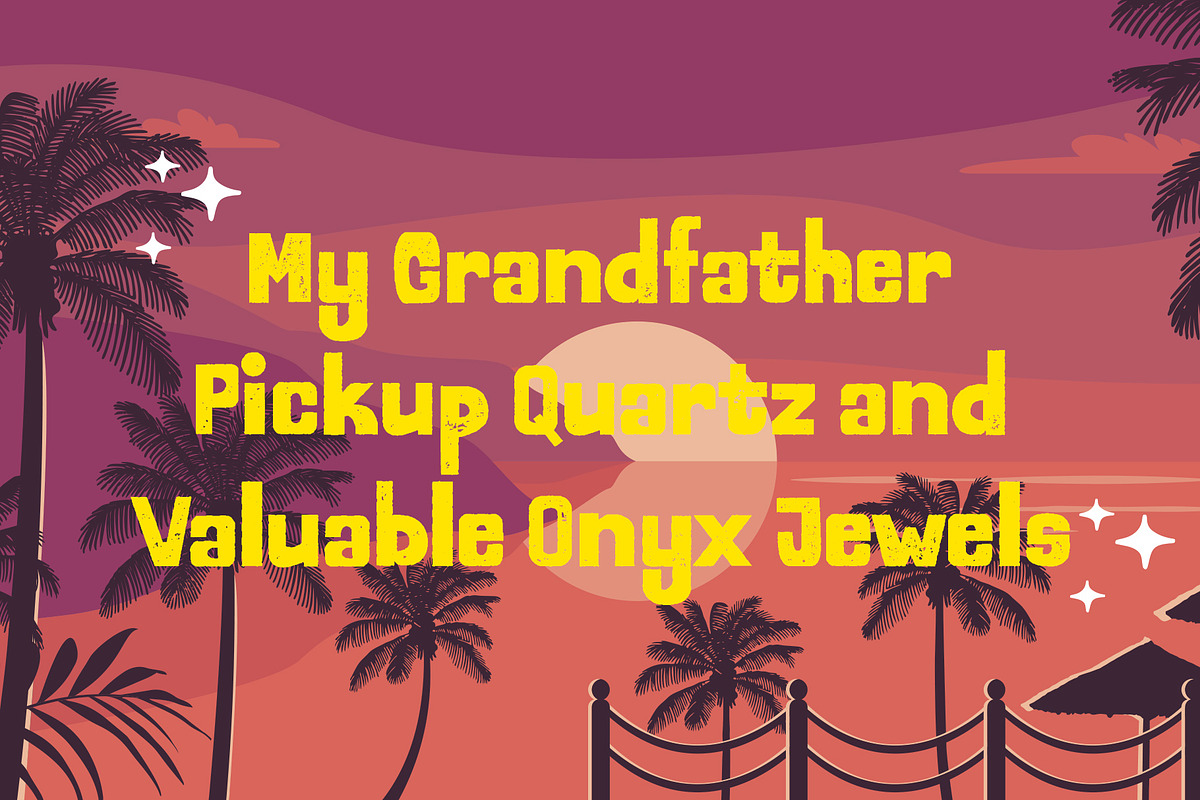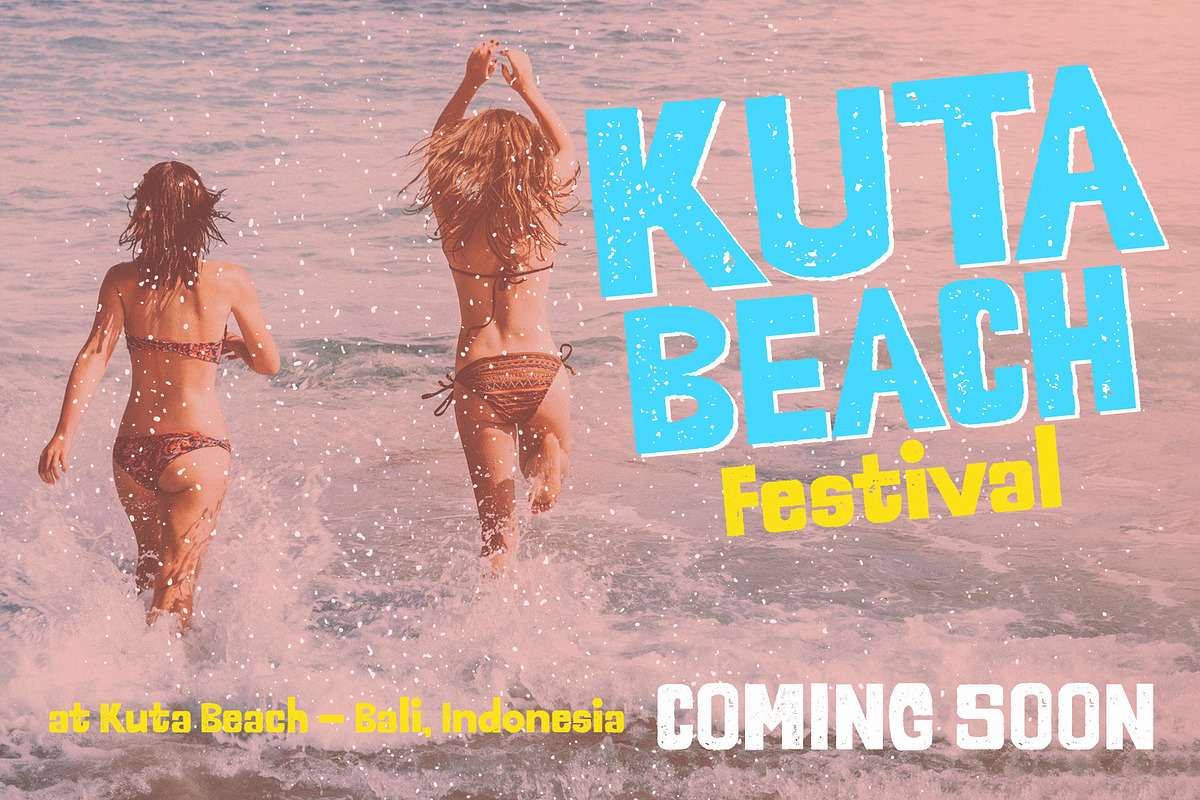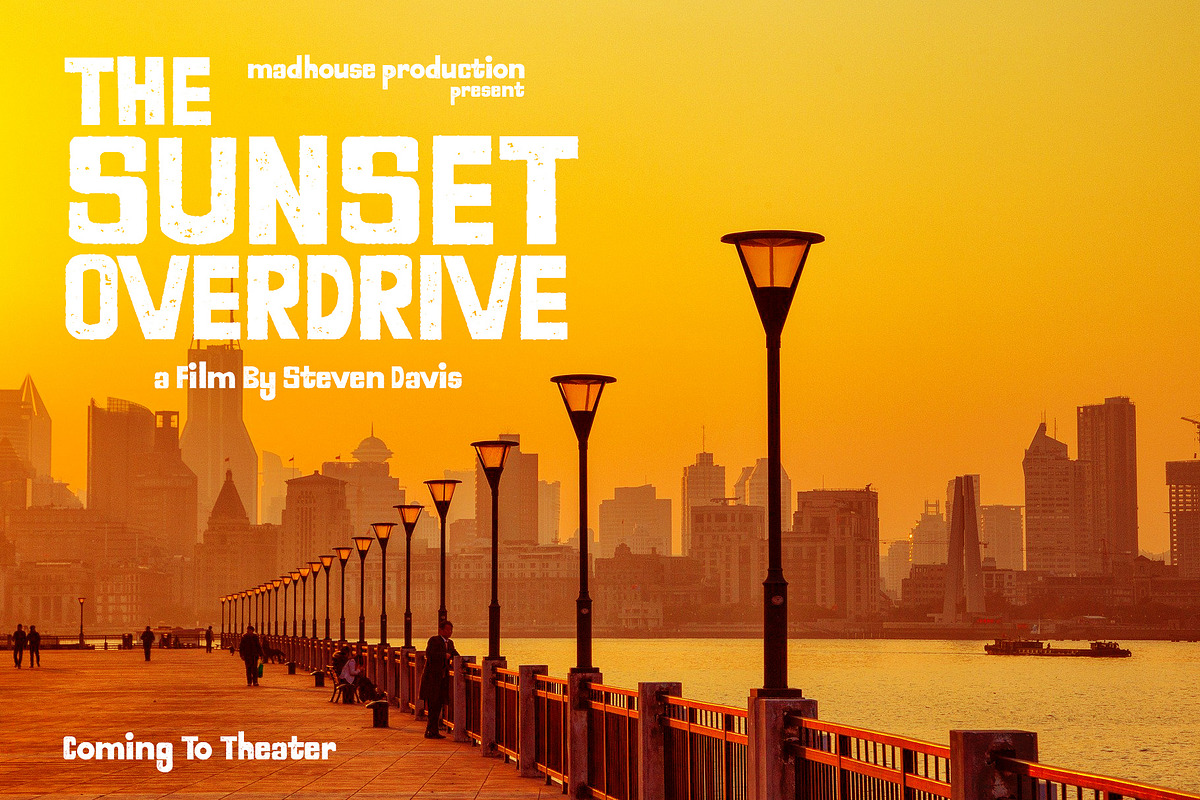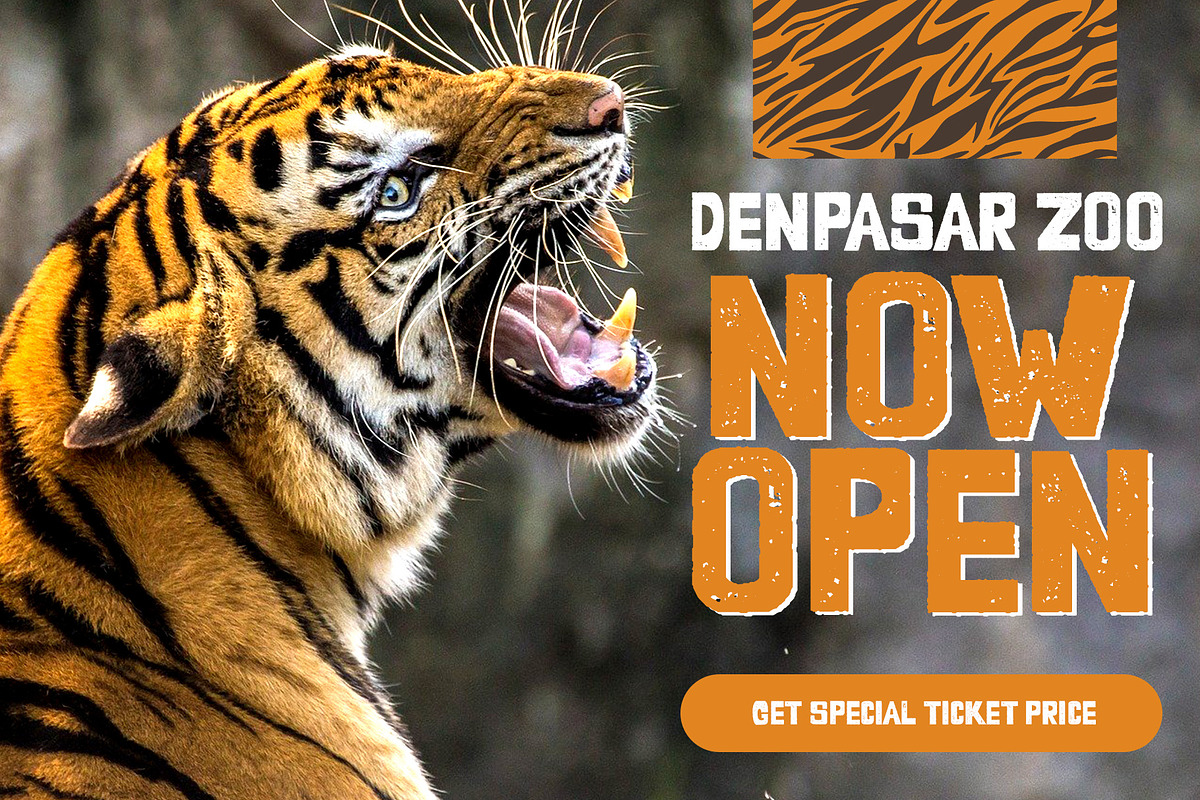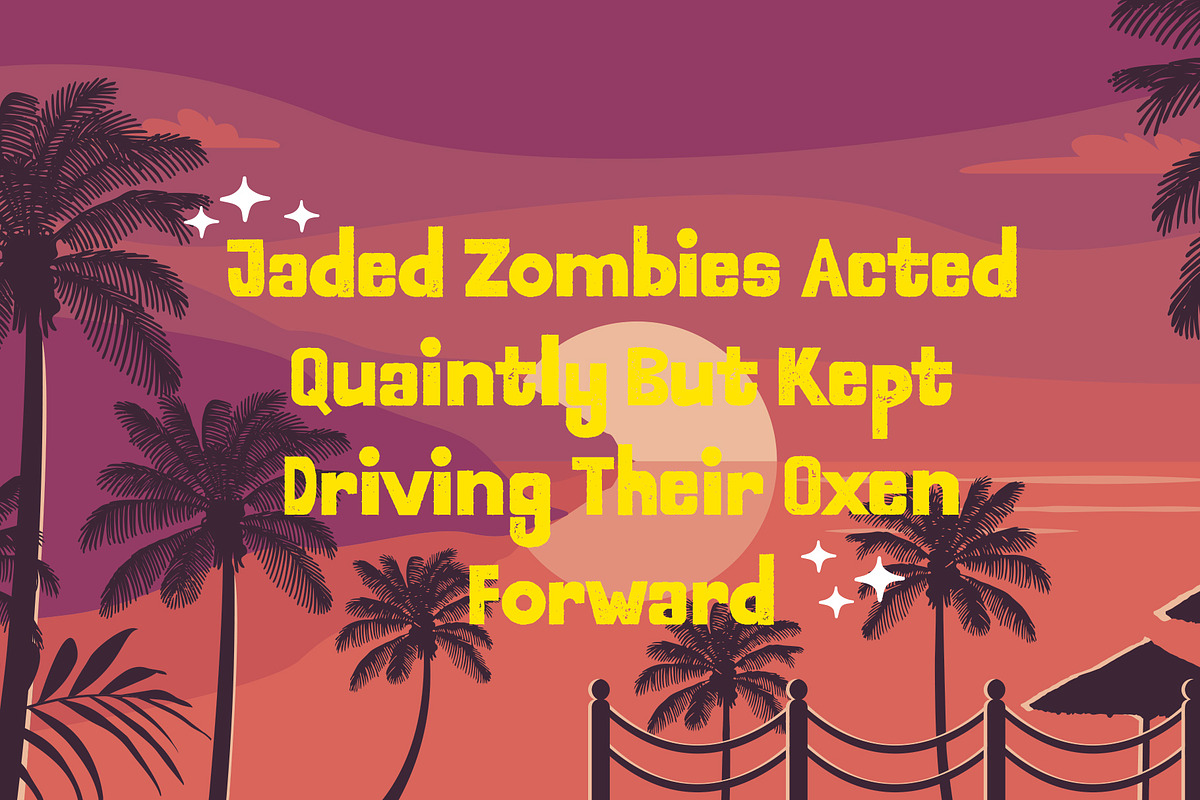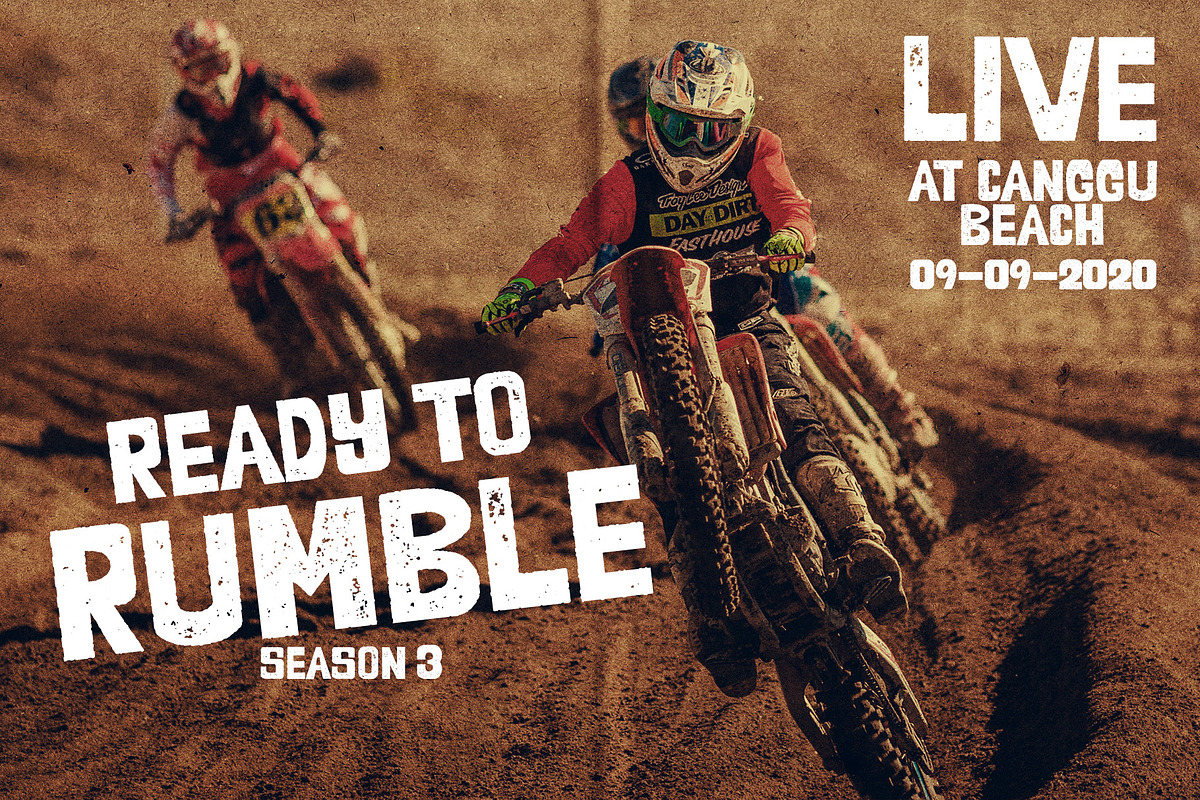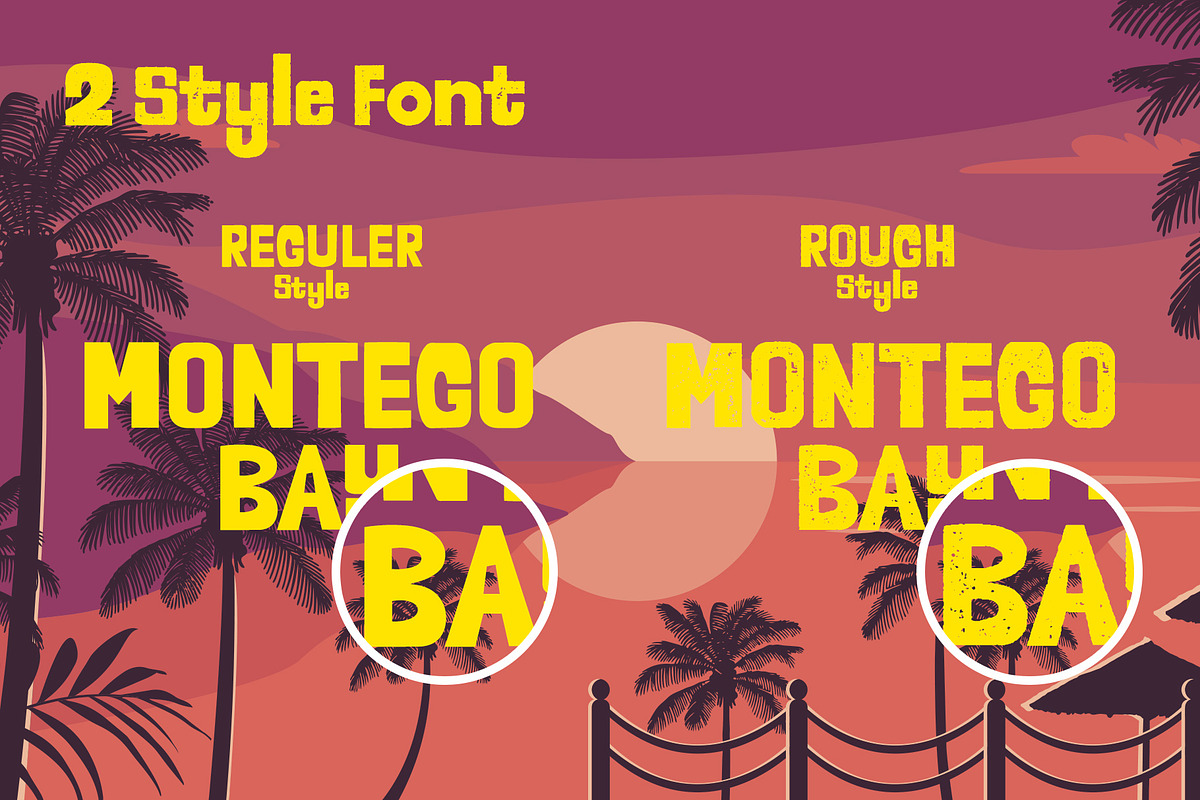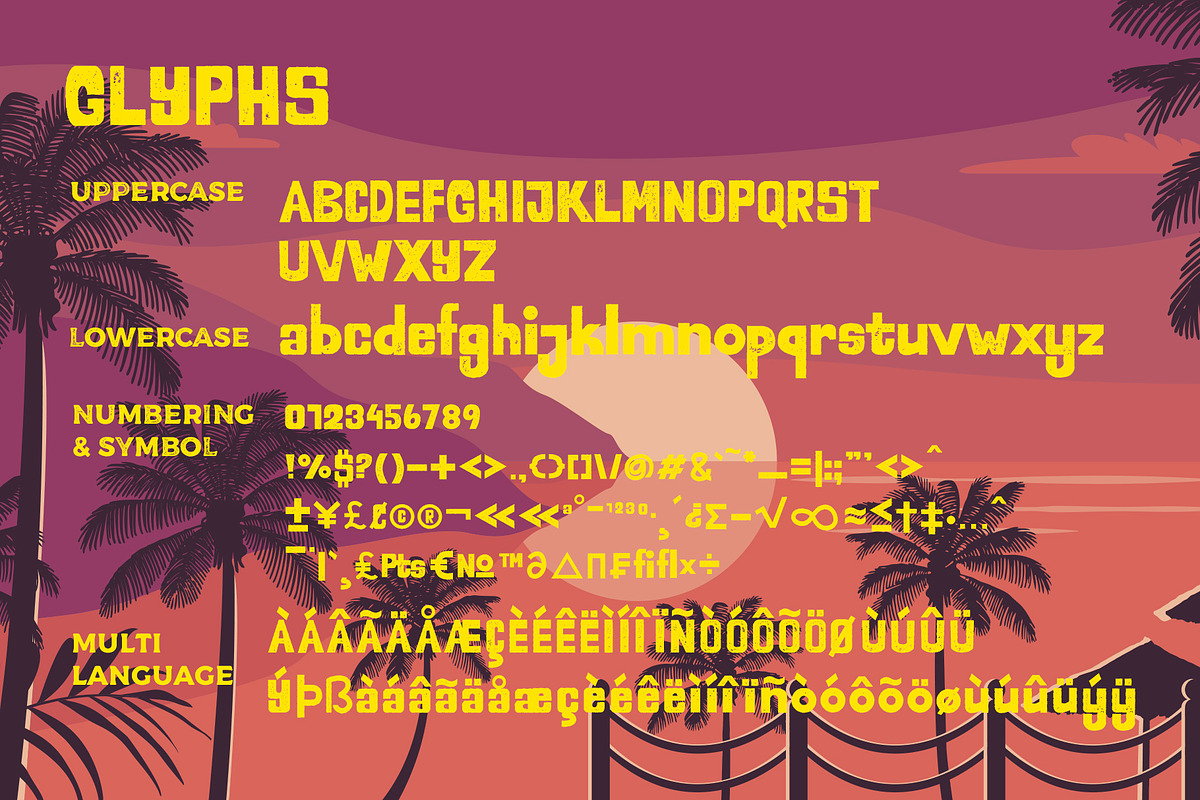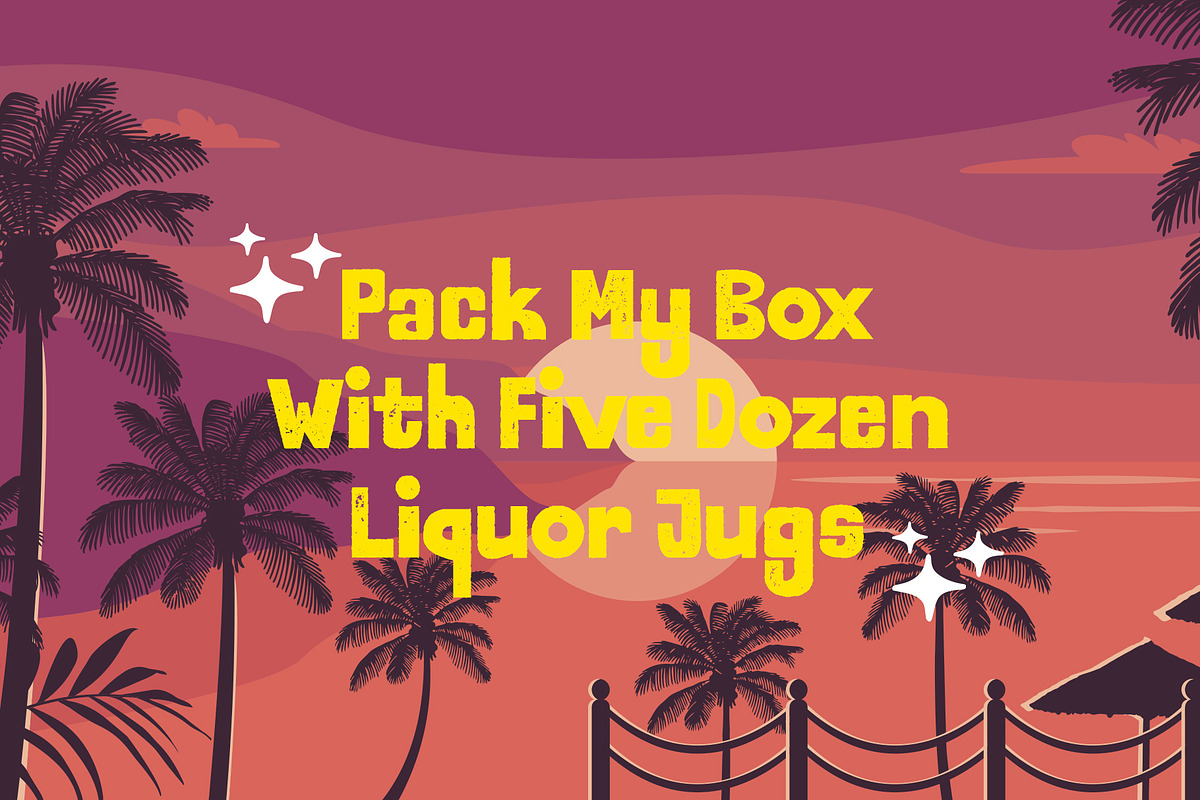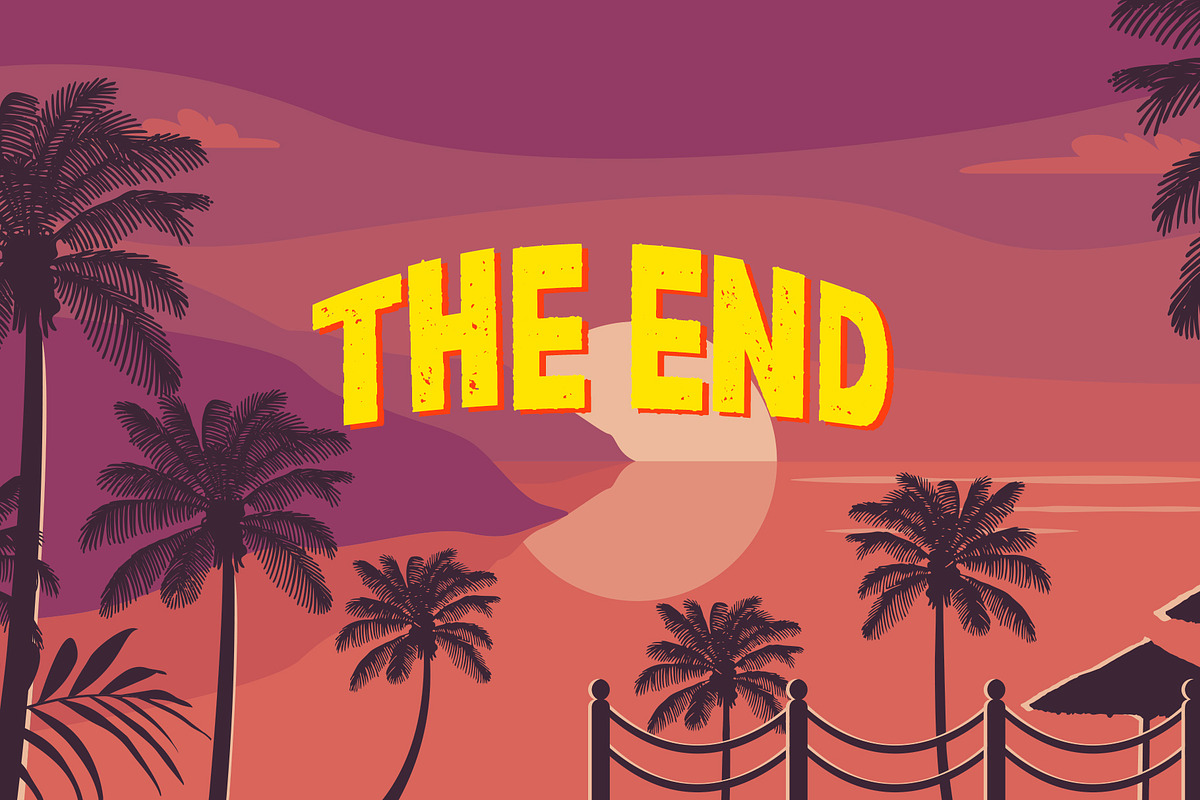
Montego Bay Stunning Display Font
I proudly introduce to you Montego Bay a stunning display font, very unique and BOLD font. Can make it easier to convey the message in your design. Use for awesome display, Logo, labeling, clothing, movie screen, poster, movie title, gigs, album covers, logos, and much more.
- 2 Style of font ( Regular and Rough )
- Numbering
- Character
- Multi Language Support